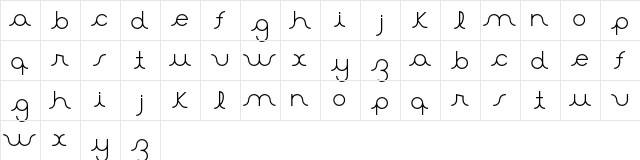
Aster 2 Regular
| Designer | Paulo R |
Design Context for Aster 2 Typeface
Aster 2 is a composed and adaptable typeface that performs quietly and consistently across a wide range of design contexts.